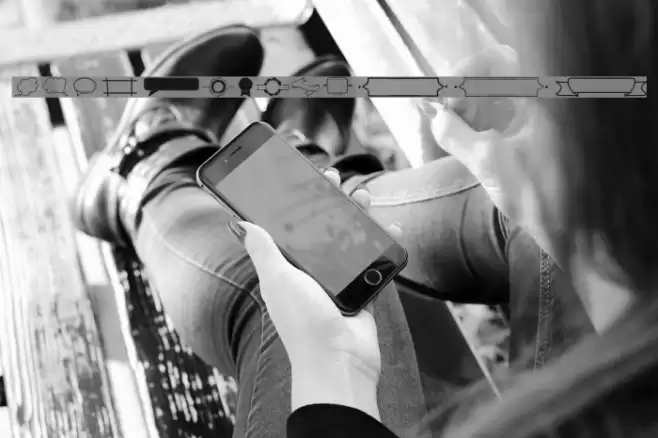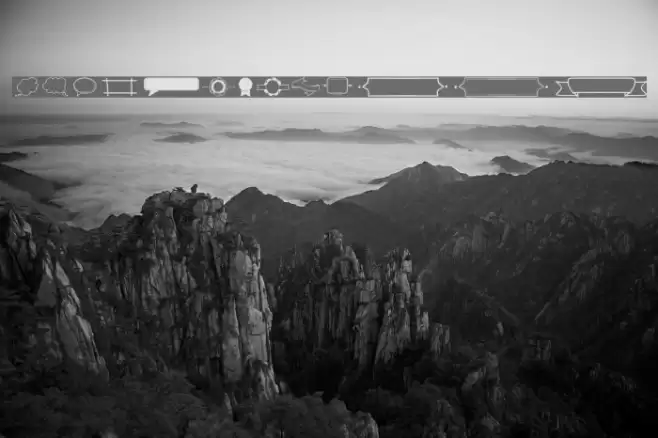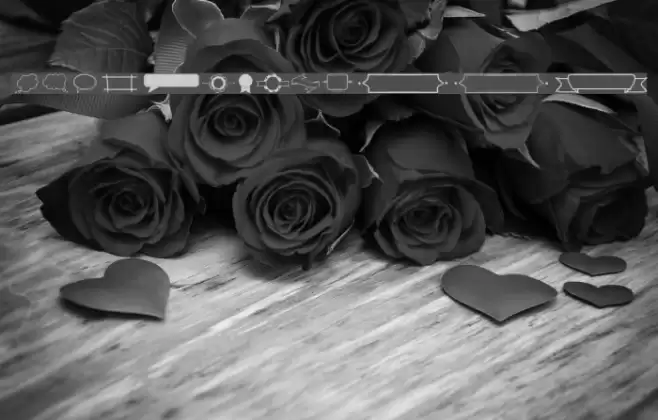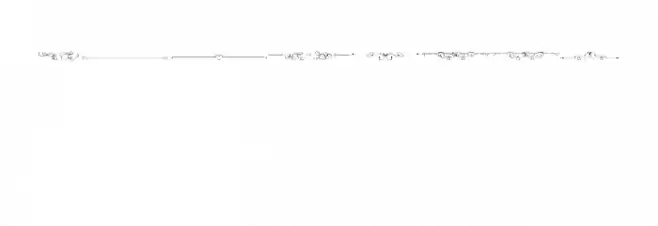
It Was A Good Day Font
It Was A Good Day Description
A decorative dingbat font featuring a variety of speech bubbles, banners, ornate frames, and flourish dividers. The glyphs are outlined and stylized, suitable for embellishing graphic designs with comic or vintage elements.
Decorative dingbat font with speech bubbles, banners, and ornate dividers from Dingbats fonts.
- Proposed Projects: Comic books, invitations, posters, scrapbooking, decorative borders, and graphic embellishments.
- Overall Style: Decorative, Comic, Vintage
- Use Case: Graphic elements, Borders, Comic accents